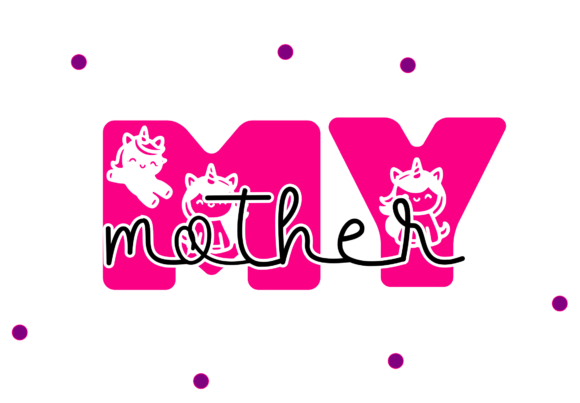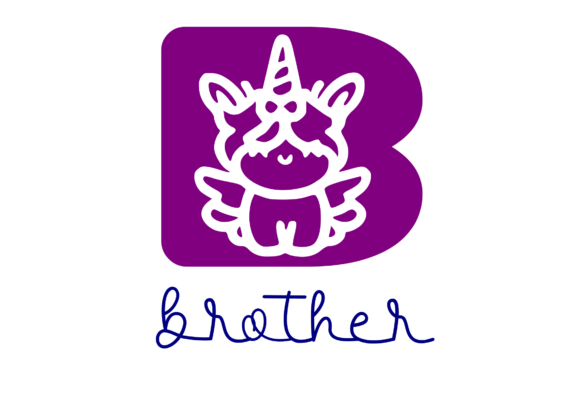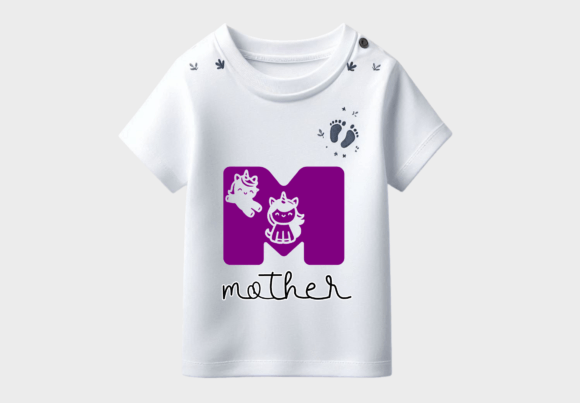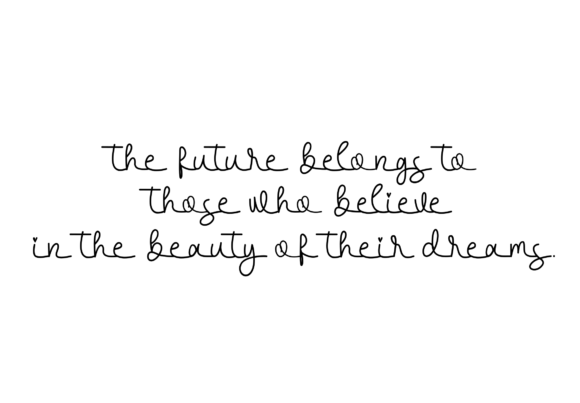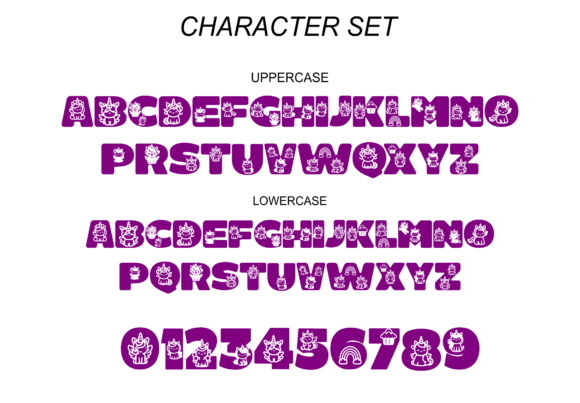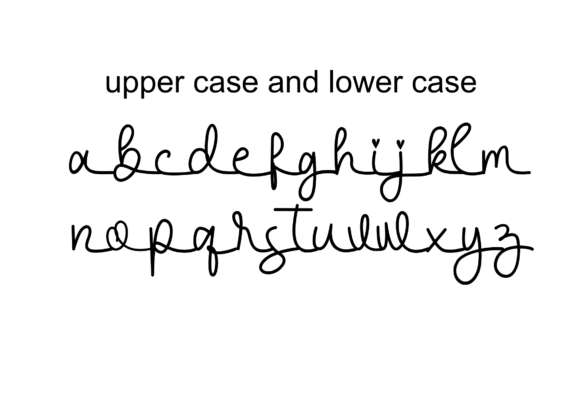
Discover the Magic of the Baby Unicorn Font
Have you ever been browsing through a design project, and suddenly, the perfect font pops up, transporting you to a world of creativity and imagination? That’s exactly what happened to many designers when they stumbled upon the enchanting Baby Unicorn Font.
This captivating font is a masterful blend of two type styles, skillfully merged to create a unique and captivating visual experience. Its inspiration from human penmanship gives it a warm, inviting feel, making it perfect for adding a personal touch to your written works.
The Baby Unicorn Font is a valuable addition to any designer’s toolkit, offering a refreshing spin to projects and a one-of-a-kind exotic appeal that sets your creations apart. Whether you’re a seasoned pro or just starting out, this font is sure to be a game-changer in your design journey.
Baby Unicorn Font Key Features
- Unique Characteristics: The Baby Unicorn Font features a playful and whimsical design, with intricate details and ornaments that evoke a sense of magic and wonder.
Baby Unicorn Font Review
As a designer, I was excited to dive into the “Baby Unicorn Font” and see what it has to offer. Here’s my honest review:
- Cute and playful vibe: The font has a whimsical feel to it, perfect for projects that need a touch of magic.
- Customizable: The font offers a range of styles and sizes, making it easy to adjust to different design needs.
- High-resolution images: The font files are clear and crisp, ensuring that text remains legible even at larger sizes.
- Limited language support: The font only supports a limited set of languages, which may be a drawback for designers working with international clients.
- Not ideal for large blocks of text: Due to its playful nature, the font can become overwhelming when used extensively.
- No bold or italic variations: While the font offers various styles, it lacks bold and italic options, which can limit its versatility.
Overall, the “Baby Unicorn Font” is a delightful addition to any designer’s toolkit. While it has its limitations, its unique charm and customizability make it a great choice for projects that require a touch of whimsy.